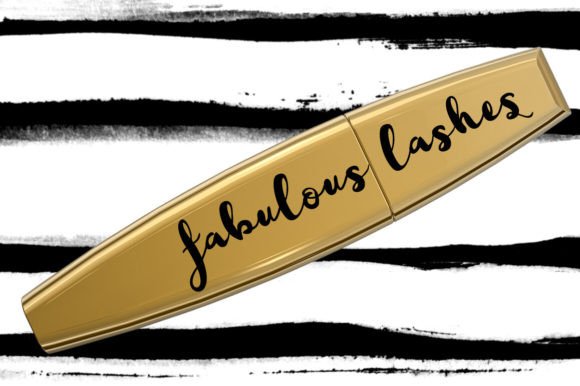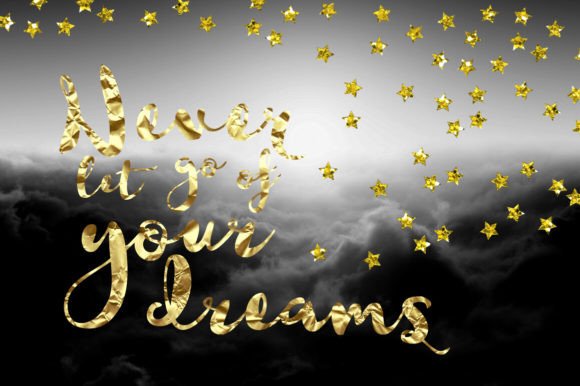
Introduction to Joella Font
This font is extremely versatile and can be used for such things as beauty, make up, typographic designs for t-shirts and fashion, etc, organic products or any kind of food and drinks products.
There are many possibilities where this font will work very well .
Key Features of Joella Font